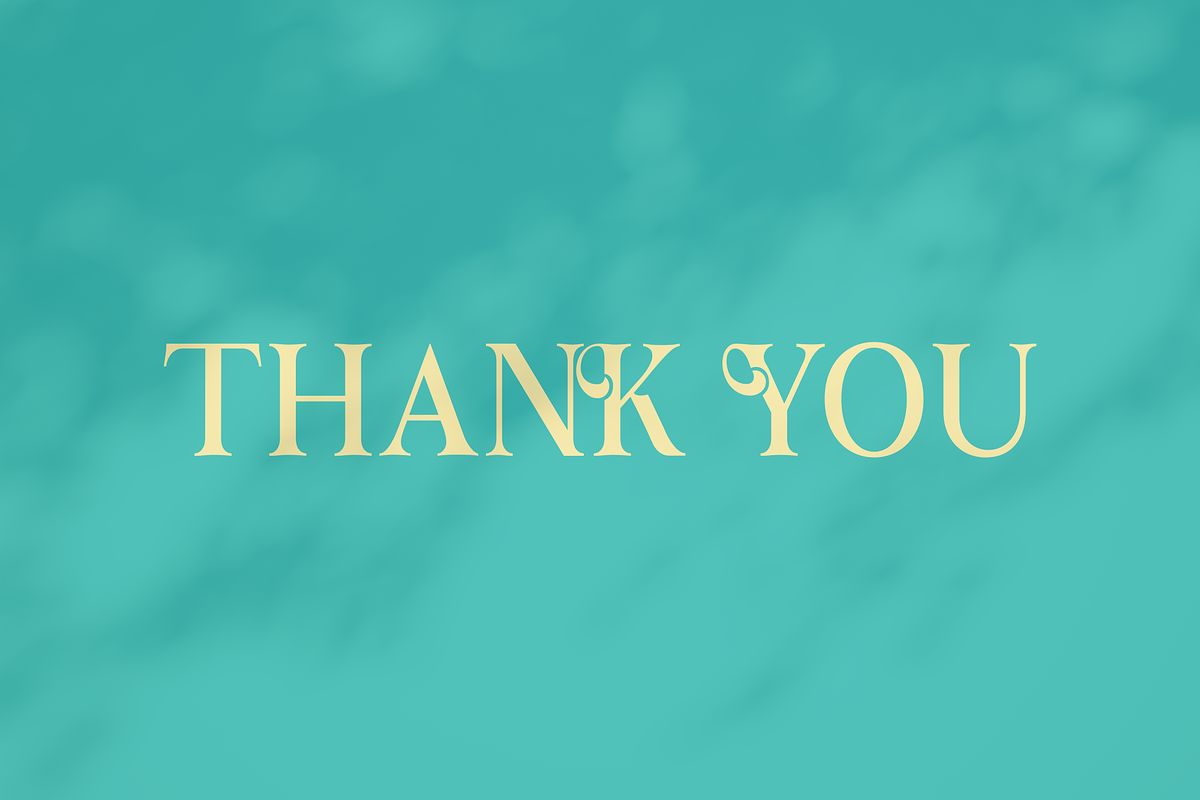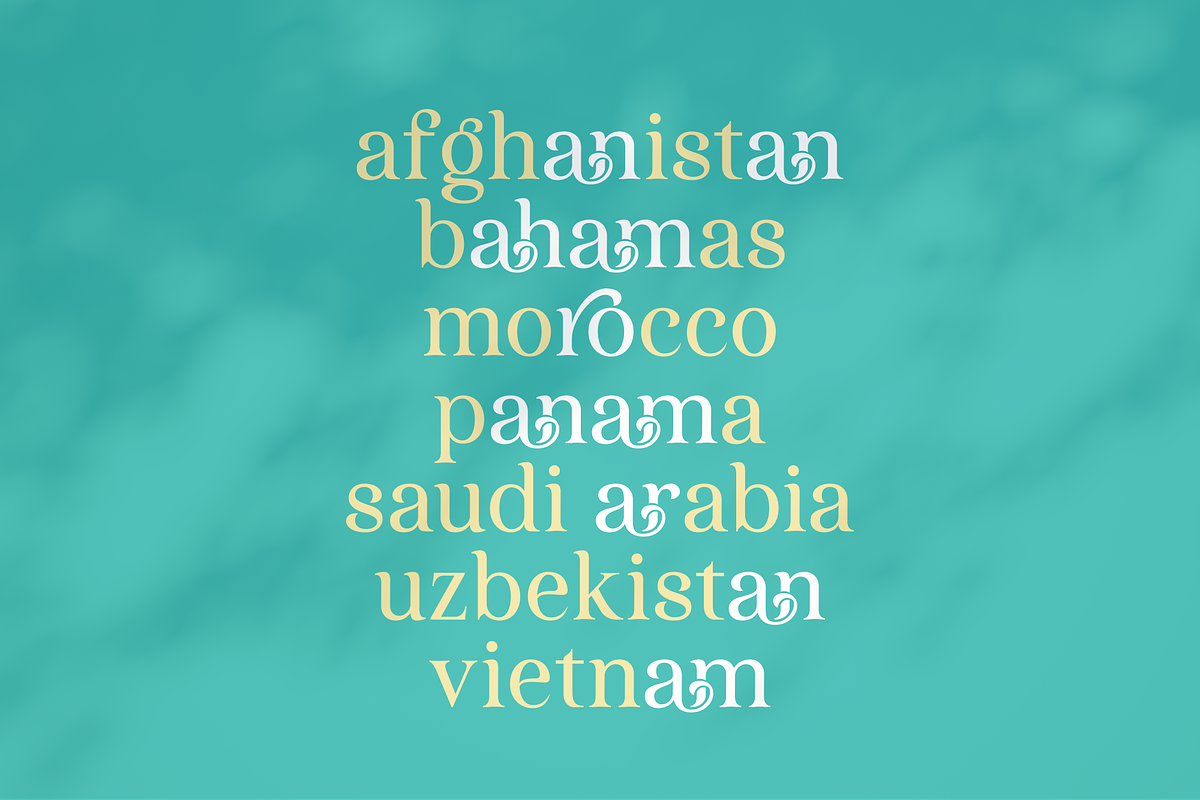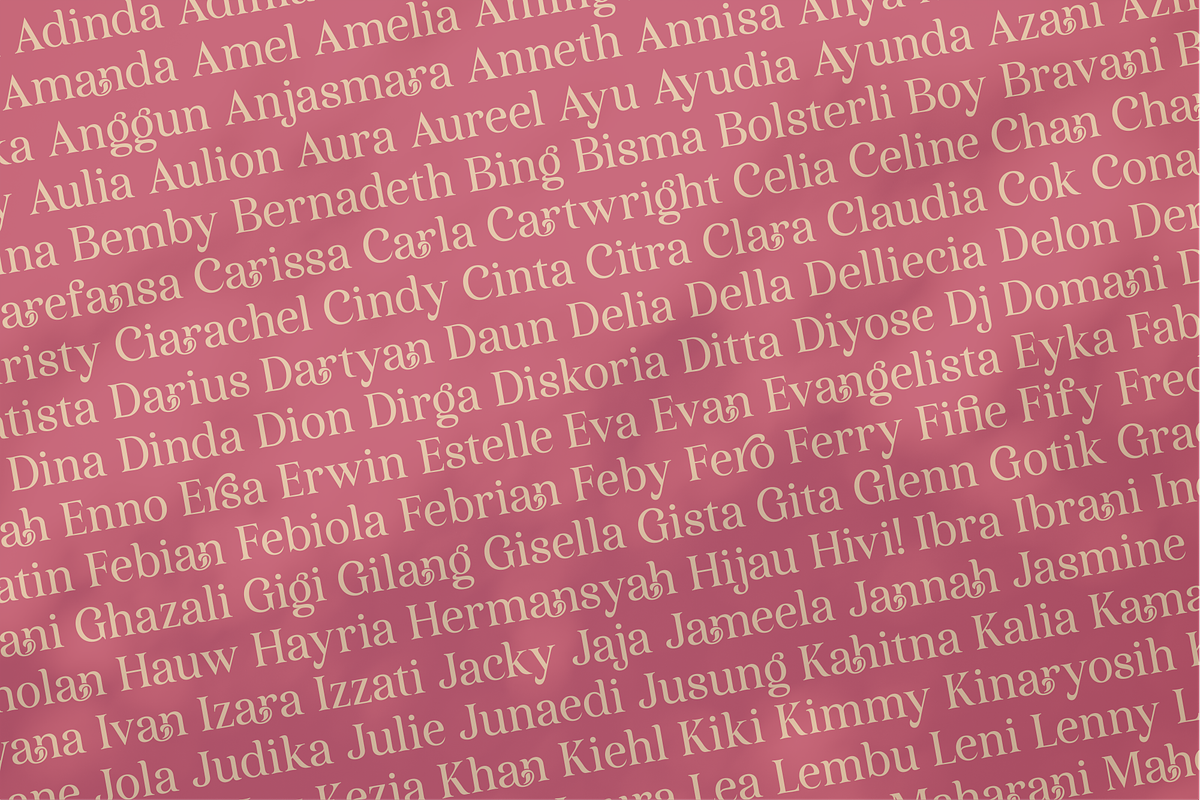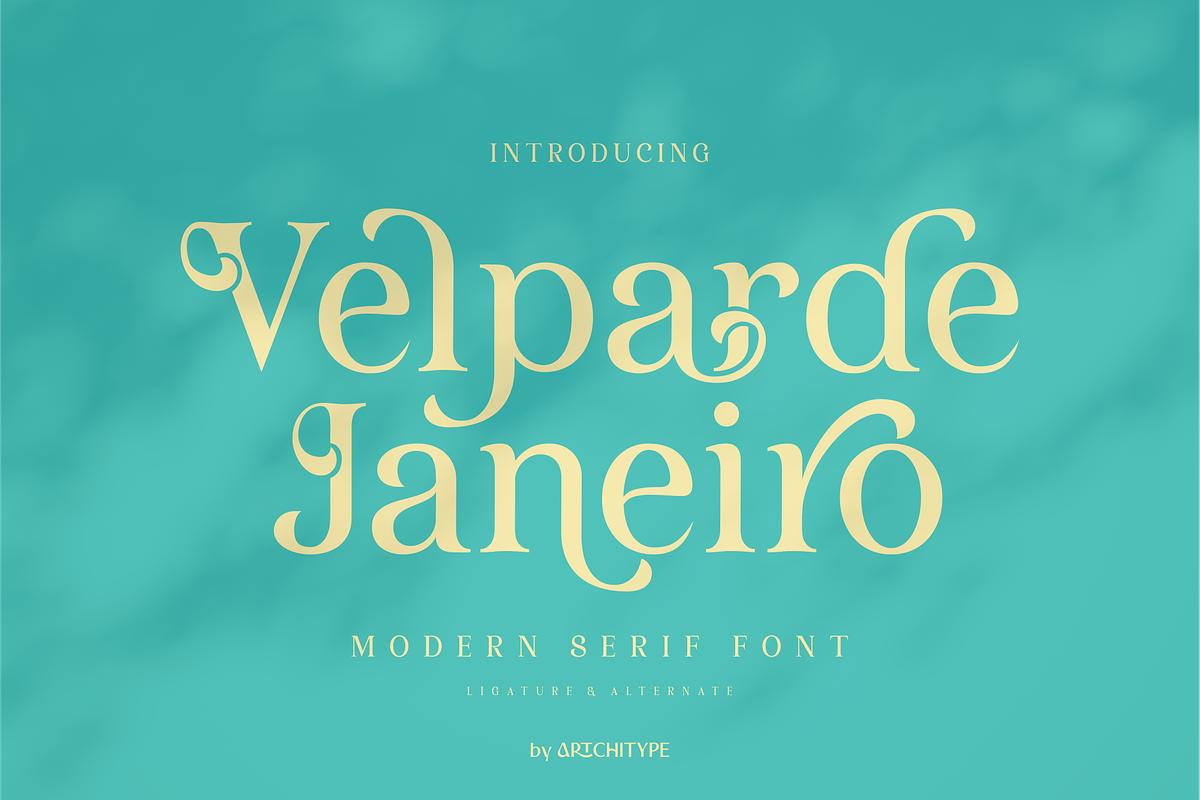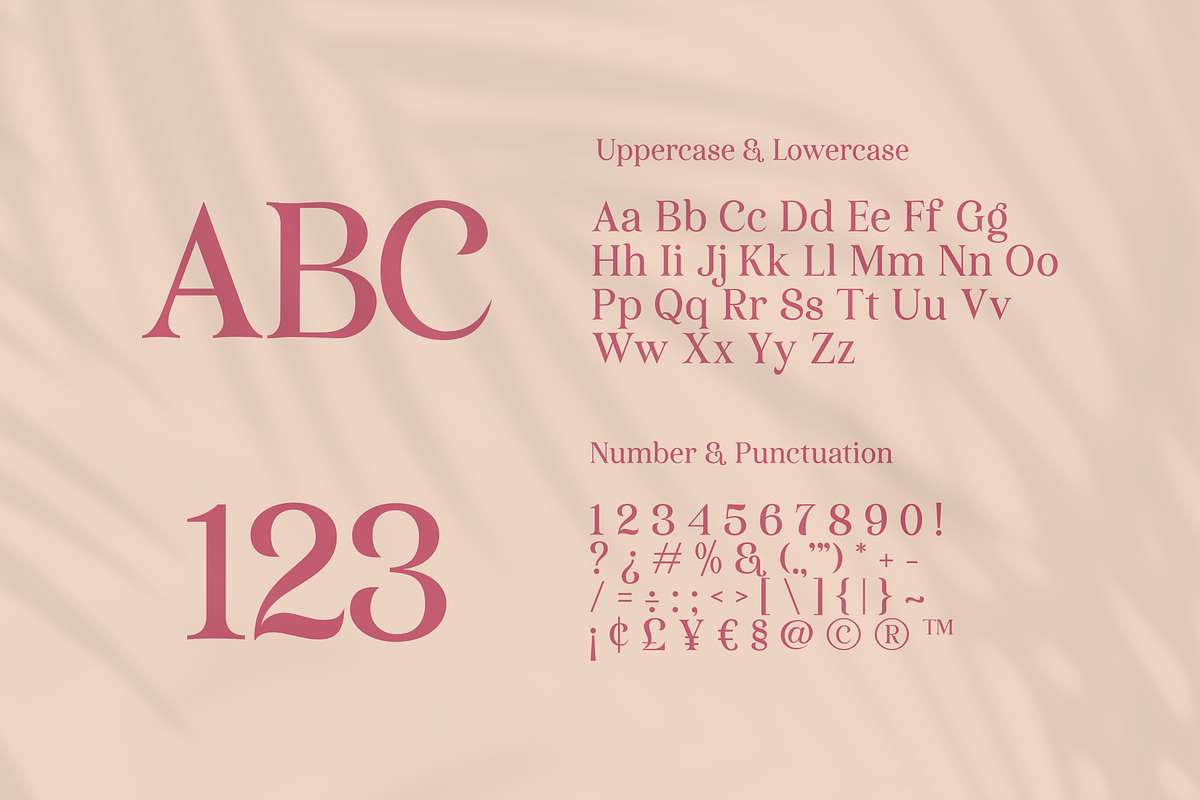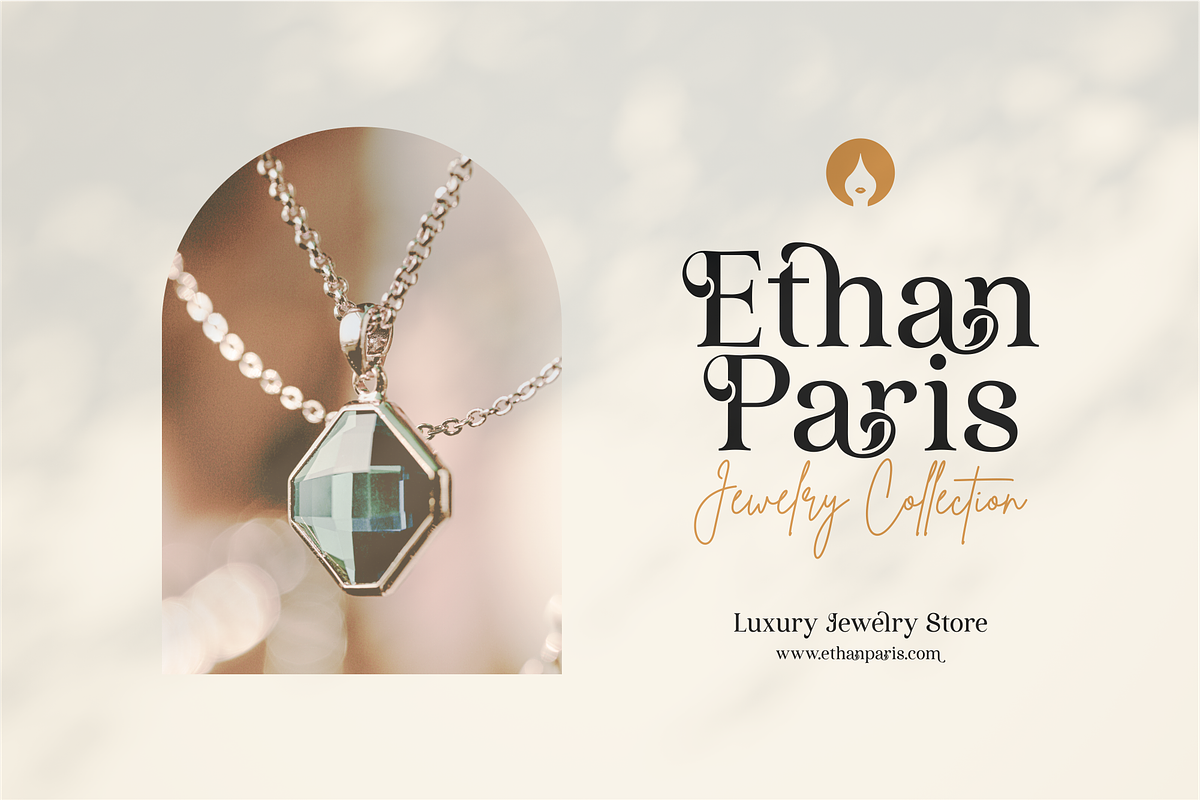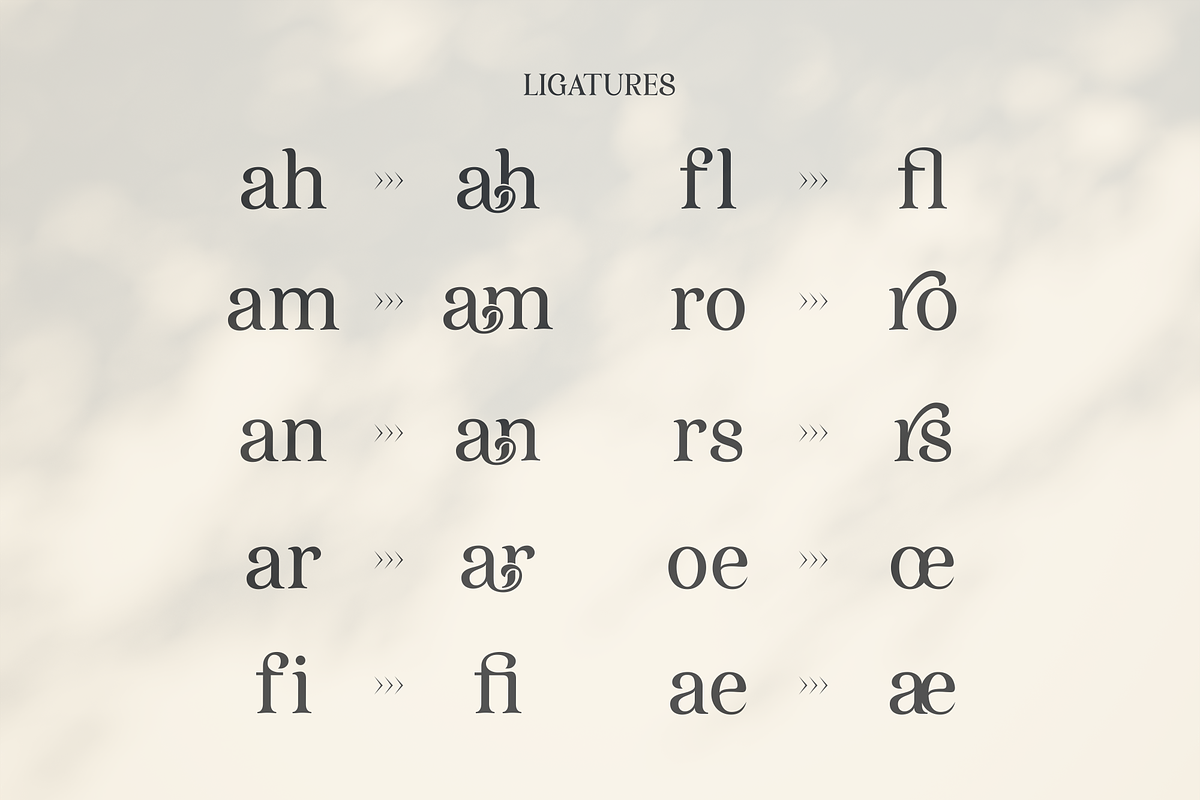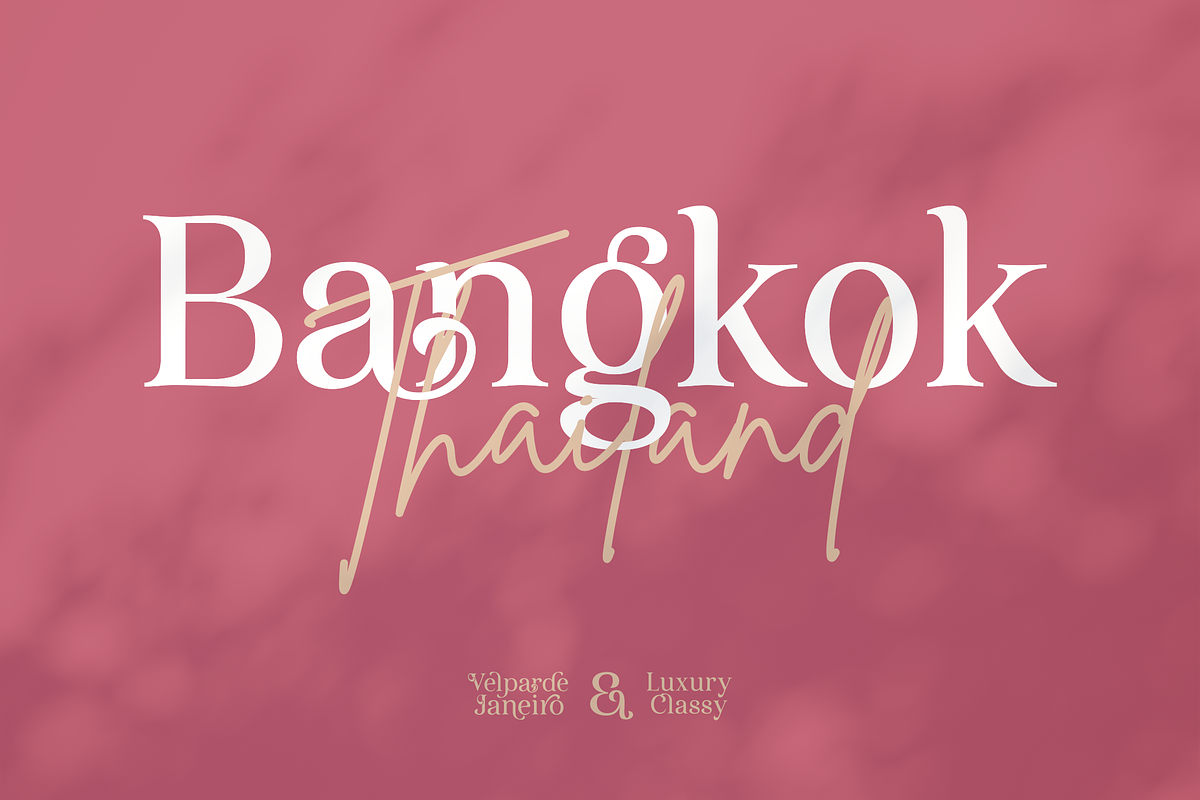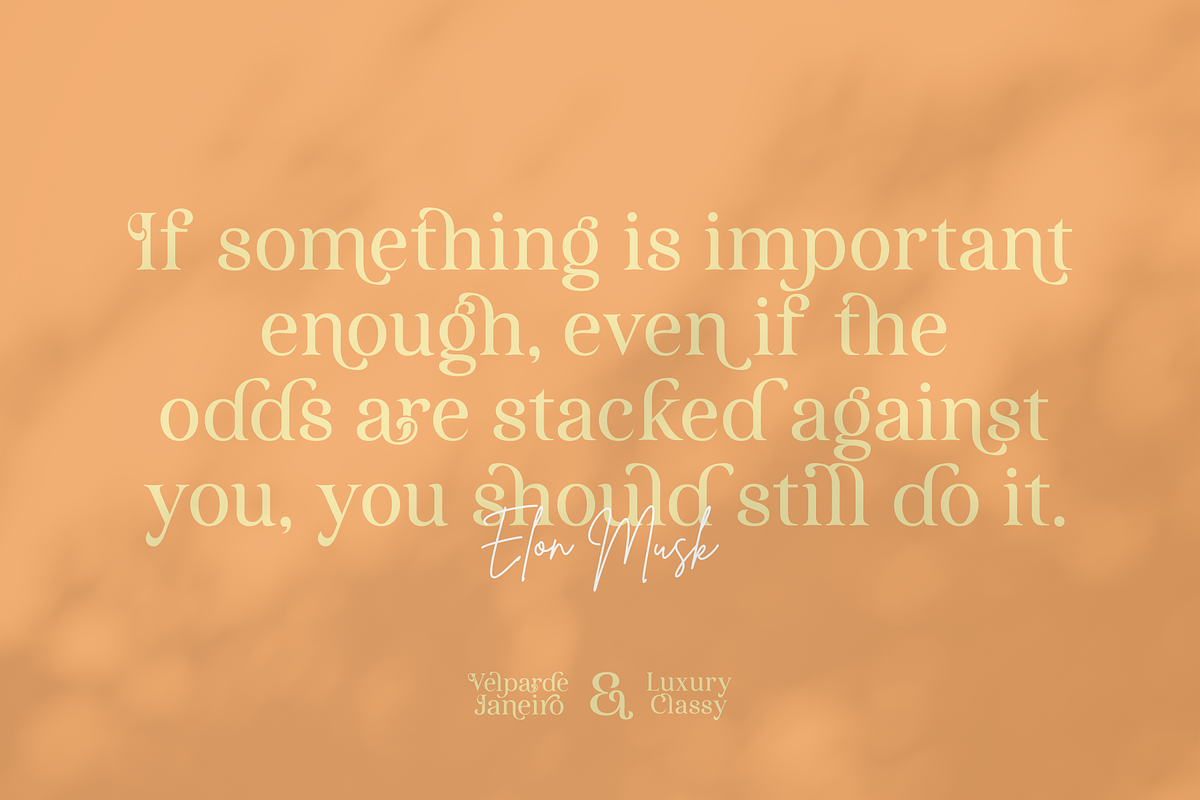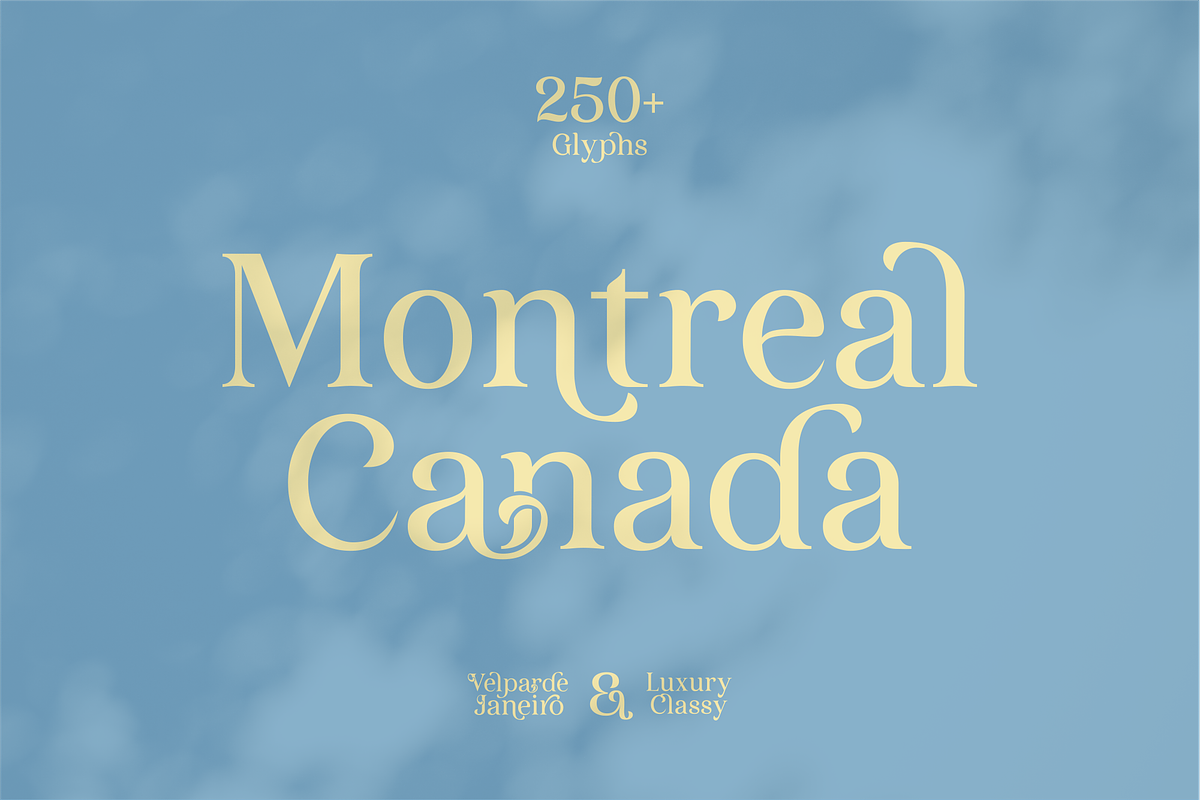
Velparde Janeiro - Modern Serif Font
Velparde Janeiro is classy display serif font with 270+ characters. Includes uppercase, lowercase characters, multilingual, alternates and most common other characters.
Velparde Janeiro is perfect for logos, social media posts, product packaging, product designs, and other projects.